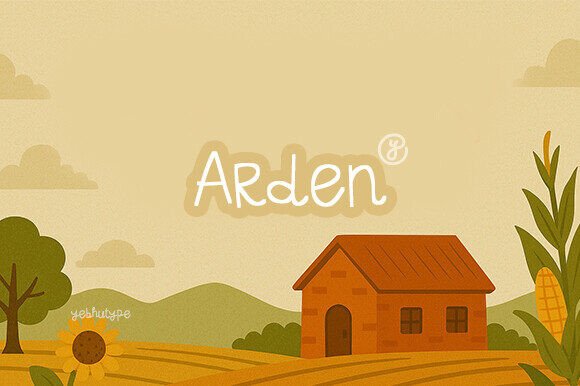
Introducing Arden Font: A Spirited Handwritten Typeface
Arden Font is a unique and captivating handwritten typeface that embodies the perfect blend of whimsy, warmth, and casual elegance. Its quirky rhythm and soft, looping forms make it an ideal choice for designers and writers looking to add a touch of personality to their work. In this article, we’ll delve into the world of Arden Font, exploring its features, benefits, and uses, as well as the story behind its creation.
The Story Behind Arden Font
Arden Font was designed with the intention of capturing the joy of expressive writing and the human touch of spontaneous creativity. The creators of Arden aimed to craft a typeface that would convey a sense of warmth and approachability, while also exuding a sense of playfulness and whimsy. Through careful attention to detail and a deep understanding of typography, Arden Font was brought to life.
Key Features of Arden Font
- Quirky Rhythm: Arden Font boasts a distinctive, irregular rhythm that gives it a sense of spontaneity and human touch.
- Soft, Looping Forms: The typeface features soft, looping forms that add to its whimsical and playful feel.
- Handwritten Style: Arden Font is a true handwritten typeface, with each letter carefully crafted to convey a sense of personality and expression.
- Warm and Inviting: The overall feel of Arden Font is warm and inviting, making it perfect for designs that require a touch of elegance and sophistication.
Benefits of Using Arden Font
Arden Font offers a range of benefits for designers, writers, and artists. Some of the key advantages of using Arden Font include:
- Unique and Memorable: Arden Font is a one-of-a-kind typeface that will help your designs stand out from the crowd.
- Emotional Connection: The warm and inviting nature of Arden Font helps to create an emotional connection with the reader, making it perfect for designs that require a personal touch.
- Flexibility: Arden Font is highly versatile and can be used in a wide range of design applications, from branding and advertising to packaging and digital media.
- Ease of Use: Arden Font is easy to read and use, making it perfect for body text, headlines, and titles.
Uses of Arden Font
Arden Font is a highly versatile typeface that can be used in a wide range of design applications. Some of the most popular uses of Arden Font include:
- Branding and Logo Design: Arden Font is perfect for creating unique and memorable brand identities.
- Advertising and Marketing: The typeface is ideal for use in advertising and marketing materials, such as brochures, flyers, and posters.
- Packaging Design: Arden Font can add a touch of personality and whimsy to packaging design, making products stand out on store shelves.
- Digital Media: The typeface is highly legible on digital screens, making it perfect for use in digital media, such as websites, social media, and email marketing.
Tips for Using Arden Font
To get the most out of Arden Font, here are a few tips to keep in mind:
- Use it Sparingly: Arden Font is a bold and expressive typeface, so use it sparingly to avoid overwhelming the reader.
- Pair it with Other Fonts: Arden Font pairs well with other fonts, such as sans-serif and serif typefaces, to create visually interesting combinations.
- Experiment with Colors: Arden Font looks great in a range of colors, so don’t be afraid to experiment and find the perfect hue for your design.
- Pay Attention to Kerning: As with any typeface, pay attention to kerning to ensure that Arden Font looks its best.
Arden Font is a unique and captivating handwritten typeface that embodies the perfect blend of whimsy, warmth, and casual elegance. With its quirky rhythm and soft, looping forms, Arden captures the joy of expressive writing and the human touch of spontaneous creativity. Whether you’re a designer, writer, or artist, Arden Font is a versatile and memorable typeface that is sure to bring a touch of personality to your work.
FAQs About Arden Font
- What is Arden Font?
- Arden Font is a handwritten typeface that blends whimsy, warmth, and casual elegance into every curve.
- What are the key features of Arden Font?
- The key features of Arden Font include its quirky rhythm, soft looping forms, handwritten style, and warm and inviting feel.
- What are the benefits of using Arden Font?
- The benefits of using Arden Font include its uniqueness, emotional connection, flexibility, and ease of use.
- What are some popular uses of Arden Font?
- Some popular uses of Arden Font include branding and logo design, advertising and marketing, packaging design, and digital media.